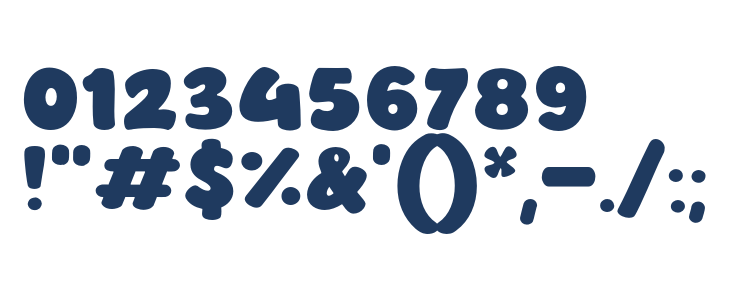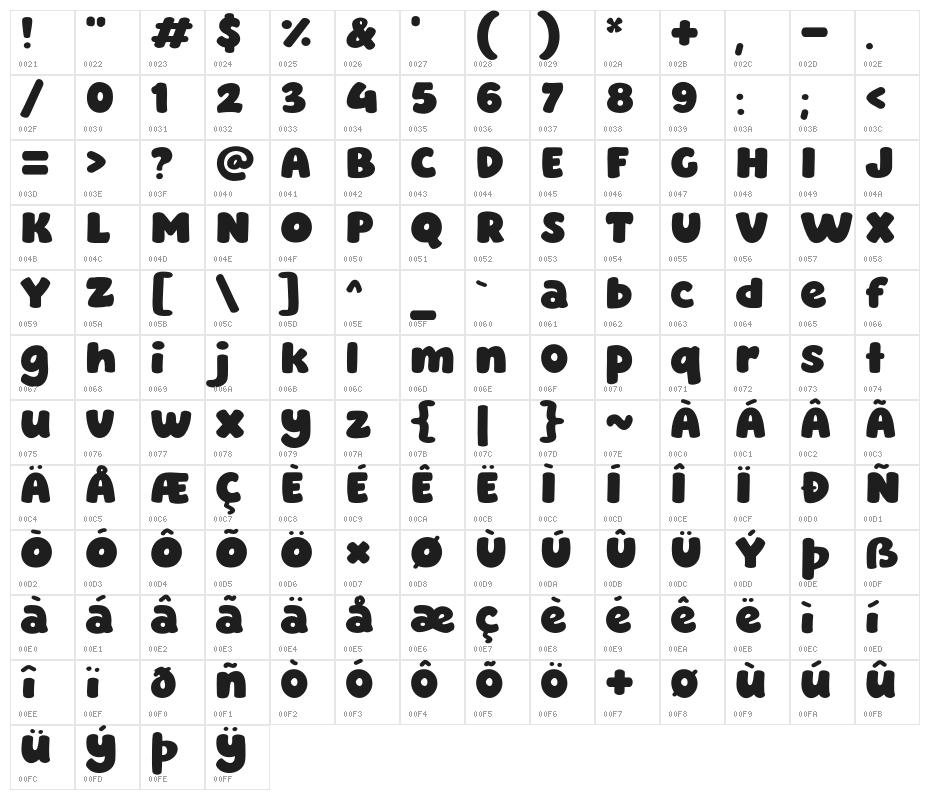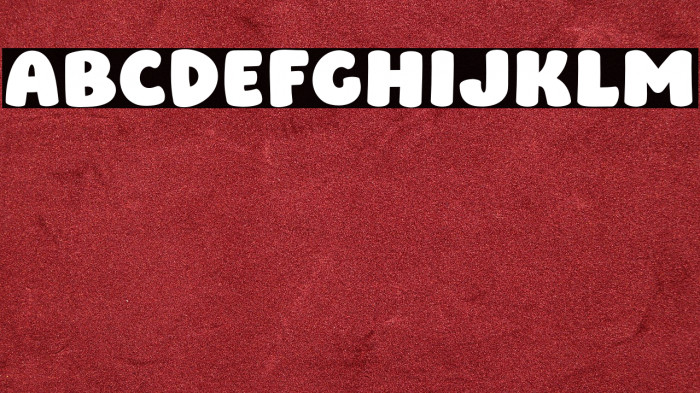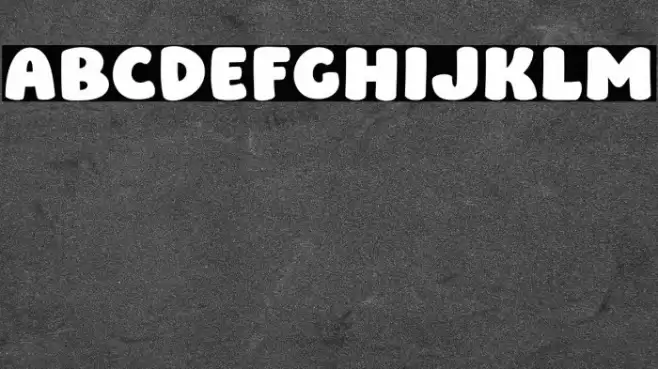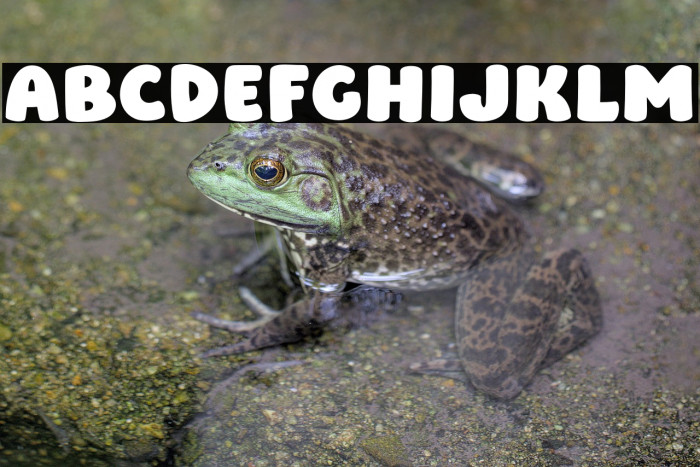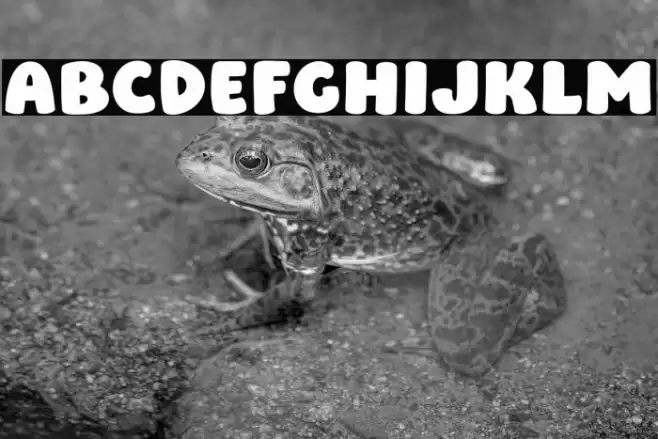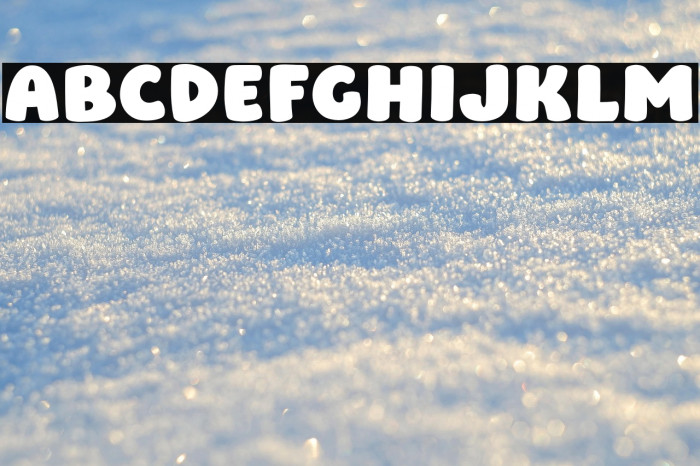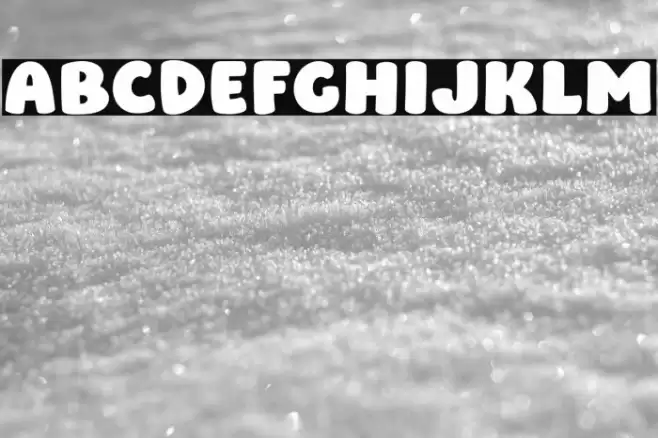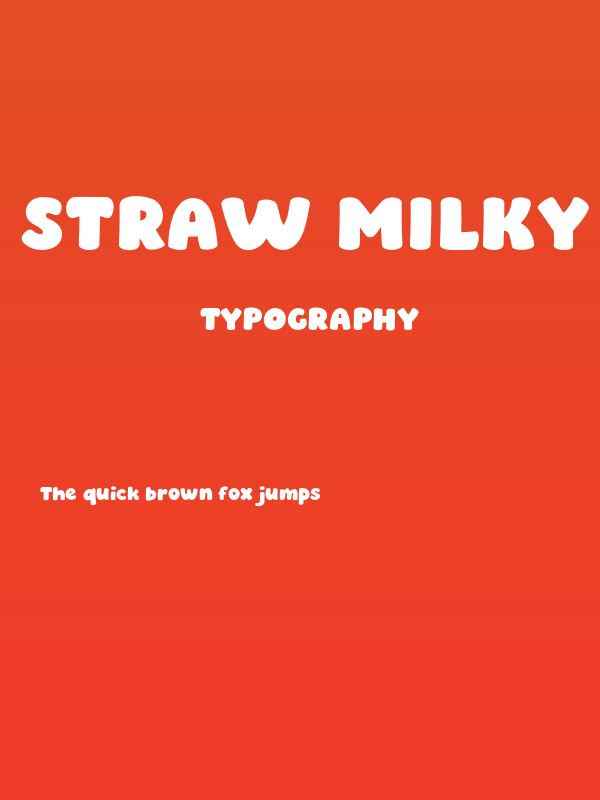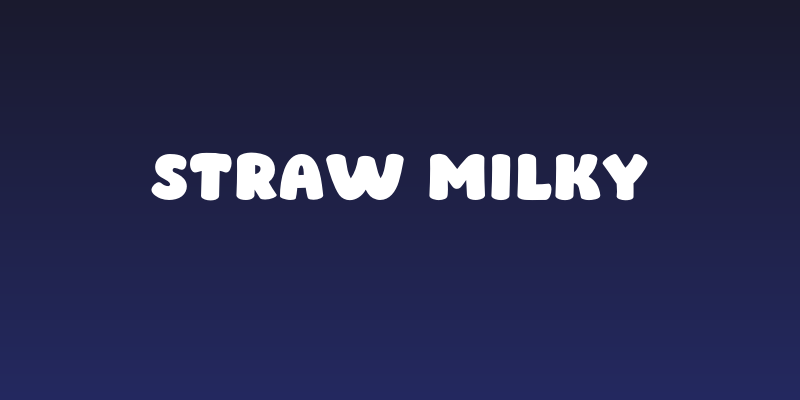
Straw Milky Font
Straw Milky Description
This playful and bold font features rounded, bubbly characters that convey a sense of fun and whimsy. The letters are thick and uniform, with a consistent stroke width that gives them a solid and substantial appearance. The rounded edges and smooth curves create a friendly and approachable feel, making it ideal for projects that aim to evoke joy and creativity. The numerals and special characters maintain the same playful style, ensuring a cohesive look across all text elements.